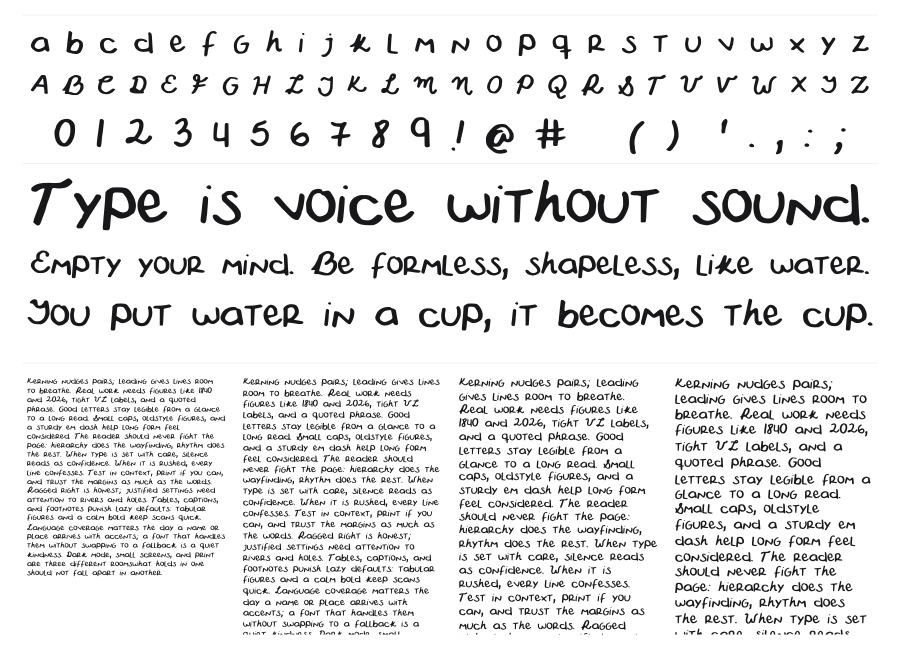
Wonderful
by Gaby Casta�eda
Wonderful is a casual handwritten face by Gaby Castañeda with rounded, bouncy letterforms that feel genuinely friendly and a little quirky. The strokes have a loose, marker-like quality that keeps things playful without losing legibility, making it a solid pick for headlines, greeting cards, social media graphics, and informal branding where you want personality front and center.